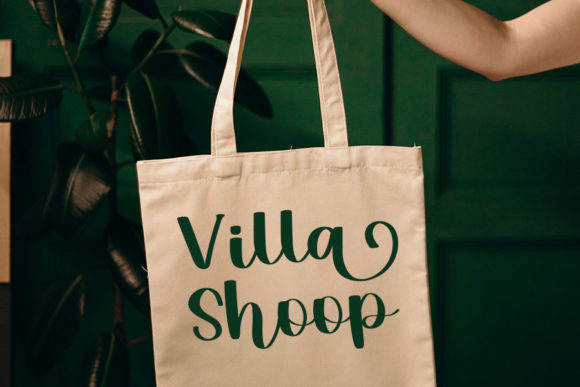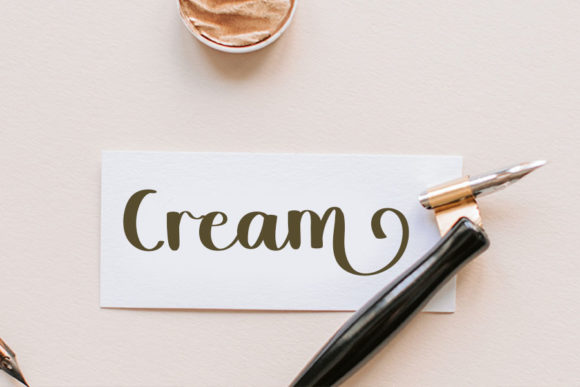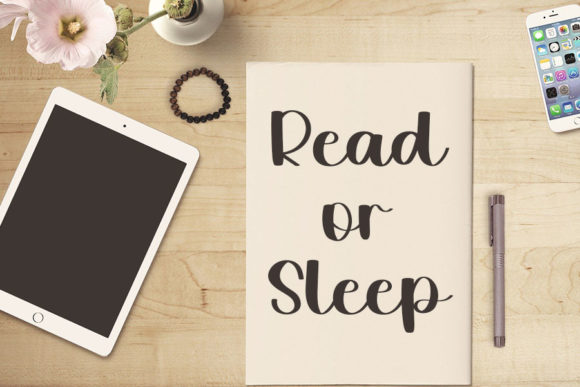
Introduction to Rathan Font
As a designer, I still remember the moment I stumbled upon a beautifully handwritten quote on a chalkboard in a quaint little café. The authentic look and feel of the quote immediately caught my attention and sparked a creative idea. I knew I wanted to recreate that same look in my designs, but finding the perfect font proved to be a challenge. That’s when I discovered Rathan Font, a cute and simple handwritten font that’s perfect for all chalkboard quotes or teaching material.
What I love about Rathan Font is its high quality and transparent background, making it an ideal design resource for any creative project. Its authentic look adds a personal and realistic feel to your designs, making it a valuable asset for any designer looking to elevate their work. And the best part? It’s available for free download, making it accessible to designers of all levels.
Key Features of Rathan Font
- Unique, modern design with a transparent background, perfect for layering and customization
- Supports a wide range of languages and character sets, making it a versatile design resource
- Perfect for digital design projects, including graphics, logos, and typography
Honest Review: Rathan Font
As a designer, I’m always on the lookout for high-quality design resources that can elevate my creative projects. Recently, I had the chance to try out the Rathan Font, and I must say it’s been a great addition to my design arsenal.
- The Rathan Font has a unique and elegant design that’s perfect for modern creative projects.
- The font comes with a transparent background, allowing for seamless integration with any design.
- The font is highly customizable, making it easy to adjust to suit any design need.
- The Rathan Font may not be suitable for projects that require a more traditional or classic font style.
Overall, I’m impressed with the Rathan Font and would highly recommend it to designers looking for a high-quality, modern font. Its unique design and transparent background make it a valuable addition to any design resource collection.
Tips for Getting the Most Out of Rathan Font
Use the Rathan Font to create high-quality designs for your creative project. Experiment with different font sizes, colors, and styles to achieve the desired look. You can also use the font as a design resource for free download and use it in various projects.
The Rathan Font is suitable for a variety of use cases, including graphic design, digital art, and typography projects. You can use it to create logos, business cards, and other design elements that require a high-quality font with a transparent background.